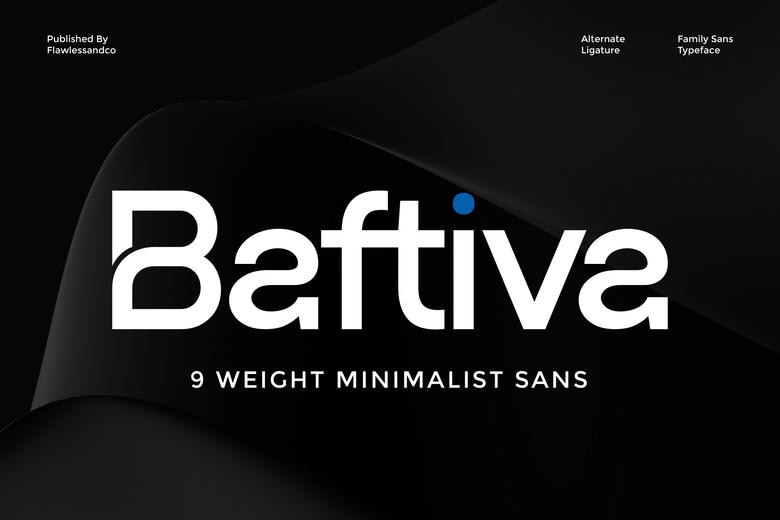
Baftiva Font
Baftiva is a contemporary sans serif typeface that has been created in a flexible and readable fashion. With 9 thoughtfully designed weights, including thin, to black, Baftiva provides a sense of balance and accuracy to all the characters – making it an ideal selection to those designers who highly regard a neat form and a powerful visual framework.
Baftiva Sans Serif Font